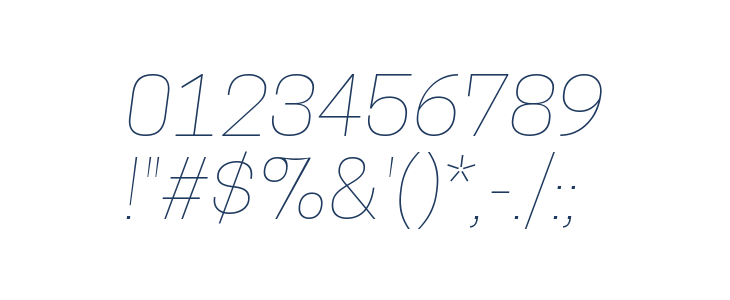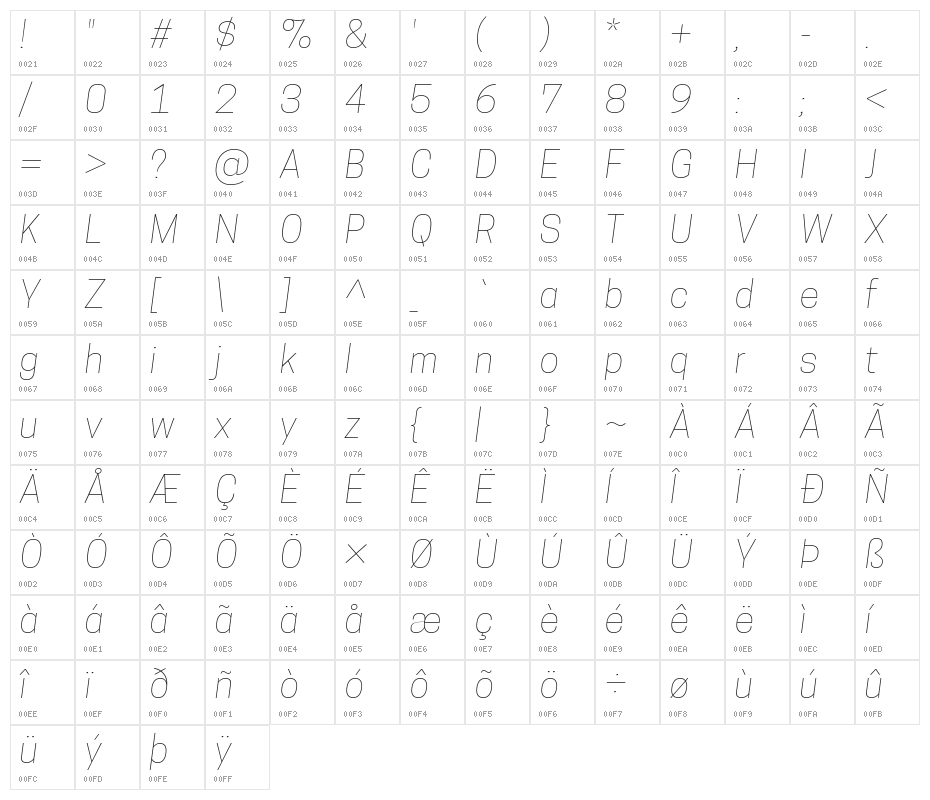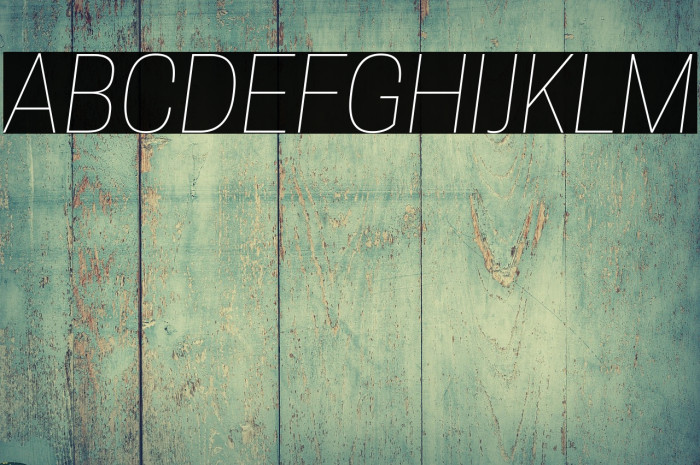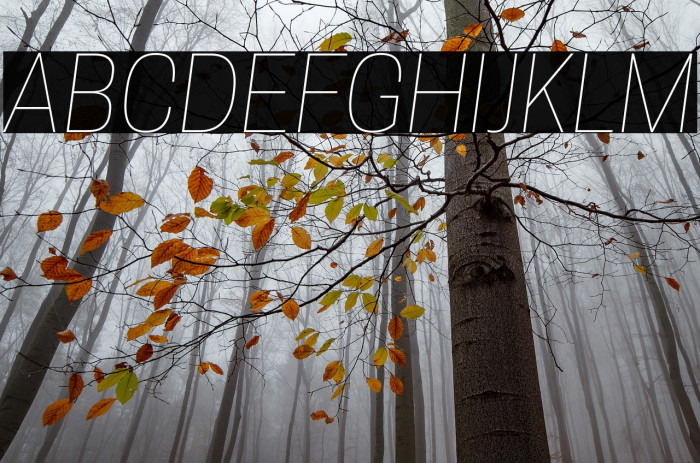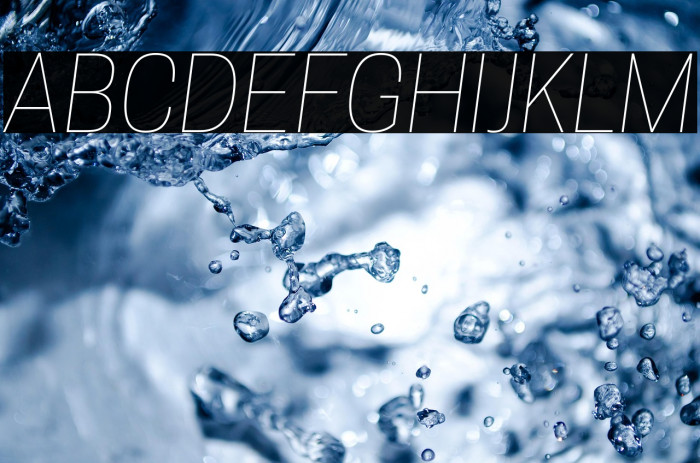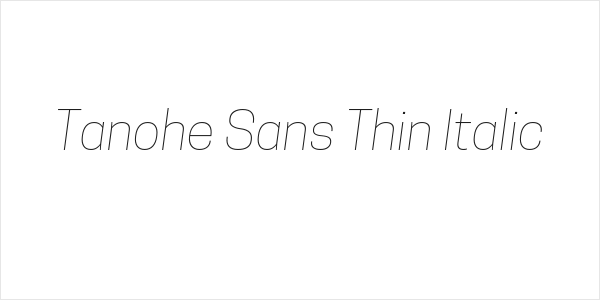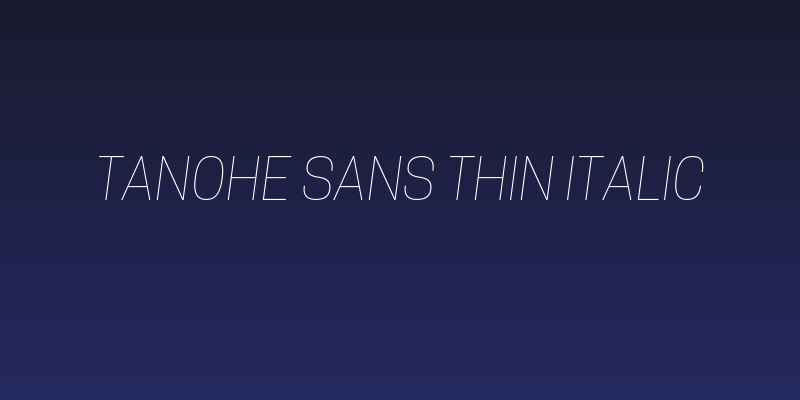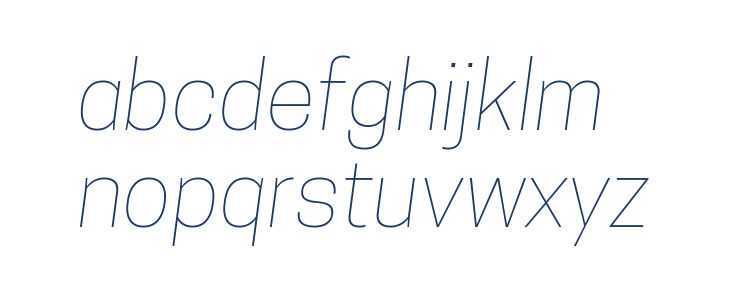
Tanohe Sans Thin Italic Font
Tanohe Sans Thin Italic Description
This font features a sleek and modern design with a thin, elegant structure. The characters are slightly italicized, giving them a dynamic and sophisticated appearance. The sans-serif style ensures clean lines and a minimalist aesthetic, making it suitable for contemporary design projects. The uppercase and lowercase letters maintain a consistent height and width, providing a harmonious look. Numbers and special characters are designed with the same thin strokes, ensuring uniformity across all elements. The overall appearance is airy and light, making it ideal for projects that require a subtle yet stylish touch.
| Proposed Projects | Ideal for fashion magazines, modern branding, minimalist websites, and elegant invitations. |